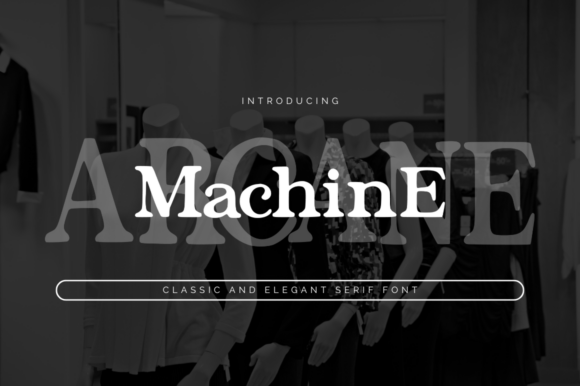
Introducing Arcane Machine Font: Elevate Your Brand with Timeless Elegance
In the world of typography, fonts play a crucial role in conveying the tone and personality of a brand. For luxury brands, magazines, fashion publications, and book titles, the right font can make all the difference. This is where Arcane Machine Font comes into play – a refined, high-contrast serif font that embodies the essence of timeless editorial typography.
What is Arcane Machine Font?
Arcane Machine Font is a sophisticated serif font designed to evoke a sense of luxury, sophistication, and authority. Its clean vertical stress and graceful curves make it an ideal choice for high-end branding, editorial content, and literary works. With its refined features, Arcane Machine Font is perfect for creating visually stunning headlines, titles, and body text that exude elegance and refinement.
Key Features of Arcane Machine Font
- High-contrast serif design: Arcane Machine Font boasts a high-contrast serif design, characterized by sharp, defined lines and elegant curves. This design style creates a sense of depth and dimensionality, making it perfect for luxury branding and editorial content.
- Clean vertical stress: The font’s clean vertical stress ensures that it remains highly legible, even at smaller sizes. This feature makes it suitable for body text, as well as headlines and titles.
- Graceful curves: Arcane Machine Font’s curves are smooth and refined, adding a touch of elegance to any text. These curves also help to create a sense of flow and continuity, making the font perfect for longer-form content.
- Timeless editorial typography: Arcane Machine Font is inspired by the classic typography of editorial publications. Its design is rooted in tradition, yet it remains modern and fresh, making it an excellent choice for contemporary brands and publications.
Use Cases for Arcane Machine Font
Arcane Machine Font is an incredibly versatile typeface, suitable for a wide range of applications. Some of the most popular use cases include:
- Luxury branding: Arcane Machine Font is perfect for luxury brands looking to create a sophisticated, high-end visual identity. Its refined features and elegant curves make it an excellent choice for logos, signage, and marketing materials.
- Magazines and editorial content: The font’s high-contrast serif design and clean vertical stress make it ideal for editorial content, such as magazines, newspapers, and online publications.
- Fashion headlines: Arcane Machine Font is a popular choice for fashion publications, where its elegant curves and refined features help to create stunning headlines and titles.
- Book titles: The font’s timeless editorial typography and high-contrast serif design make it perfect for book titles, adding a touch of sophistication and elegance to any literary work.
Benefits of Using Arcane Machine Font
Arcane Machine Font offers a range of benefits for brands, publications, and designers. Some of the most significant advantages include:
- Sophistication and authority: Arcane Machine Font exudes sophistication and authority, making it perfect for luxury brands and high-end publications.
- High legibility: The font’s clean vertical stress and high-contrast serif design ensure that it remains highly legible, even at smaller sizes.
- Elegance and refinement: Arcane Machine Font’s elegant curves and refined features add a touch of elegance and refinement to any text, making it perfect for luxury branding and editorial content.
- Versatility: The font’s versatility makes it suitable for a wide range of applications, from luxury branding to editorial content and literary works.
Tips for Using Arcane Machine Font
To get the most out of Arcane Machine Font, here are some tips to keep in mind:
- Use it sparingly: Arcane Machine Font is a sophisticated typeface that can quickly become overwhelming if overused. Use it sparingly to create a sense of luxury and elegance.
- Pair it with complementary fonts: Arcane Machine Font pairs well with a range of complementary fonts. Experiment with different pairings to find the perfect combination for your brand or publication.
- Experiment with different sizes: Arcane Machine Font remains highly legible at various sizes. Experiment with different sizes to find the perfect fit for your content.
Arcane Machine Font is a refined, high-contrast serif font that embodies the essence of timeless editorial typography. Its clean vertical stress, elegant curves, and sophisticated features make it an ideal choice for luxury branding, magazines, fashion headlines, and book titles. With its versatility, elegance, and high legibility, Arcane Machine Font is the perfect choice for brands and publications looking to elevate their visual identity and create a lasting impression.